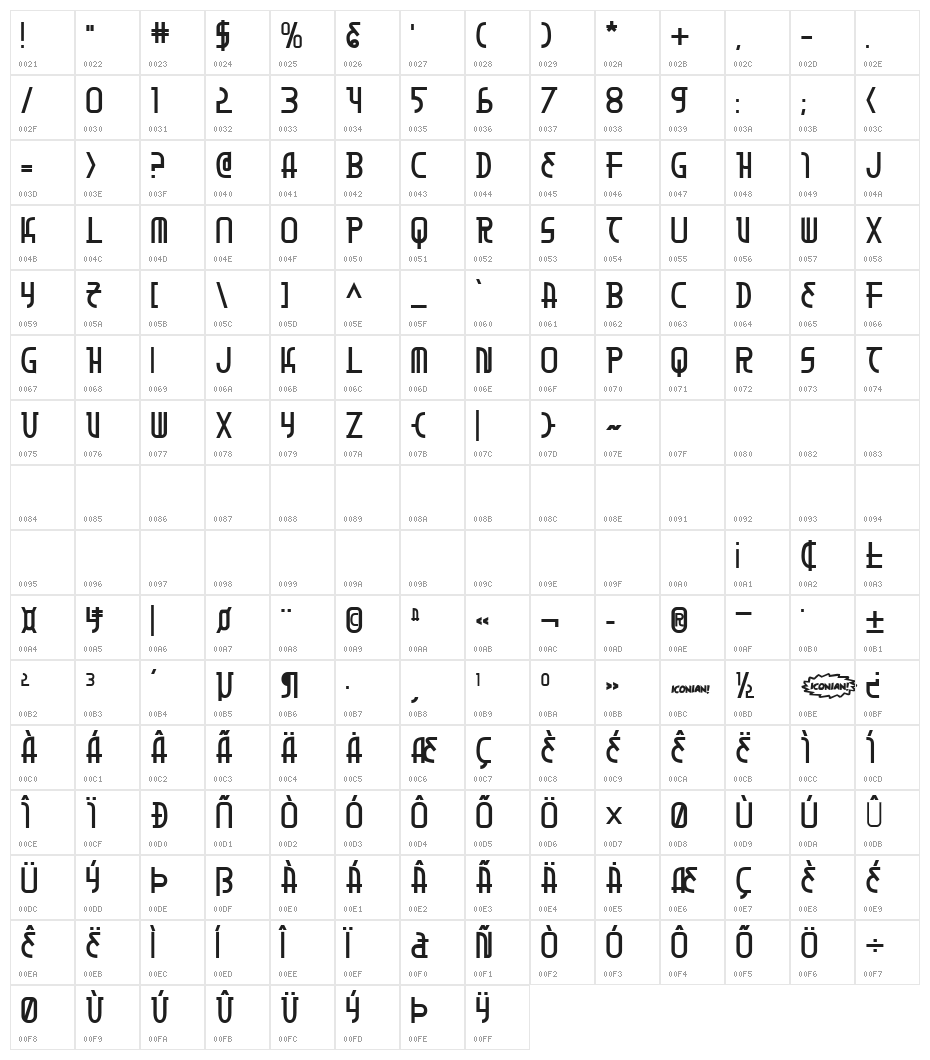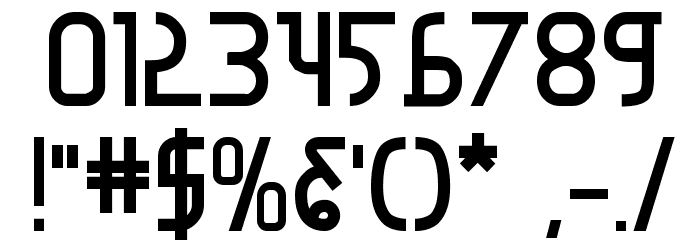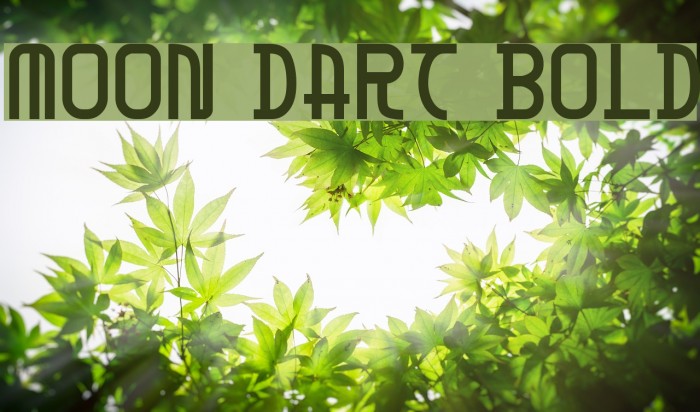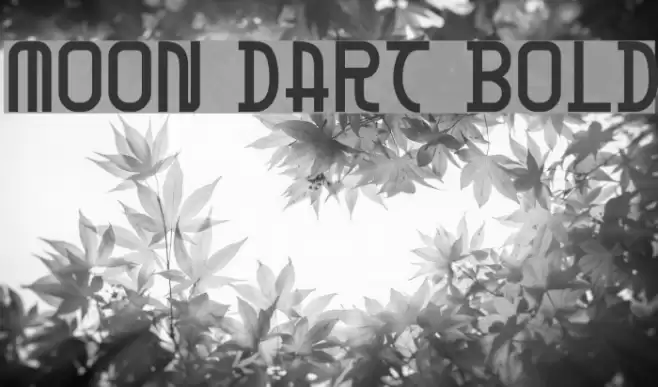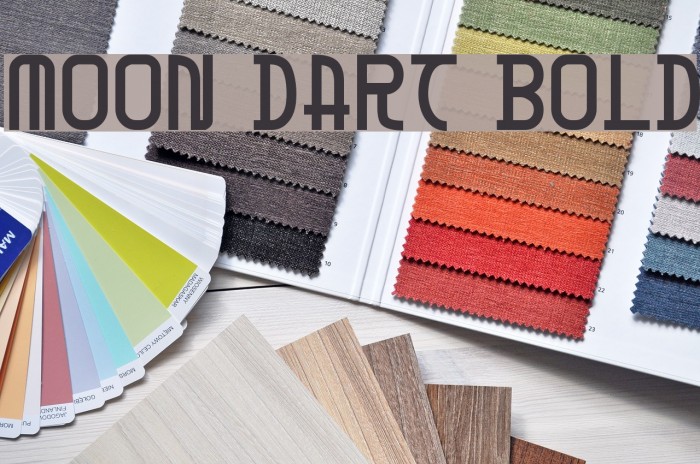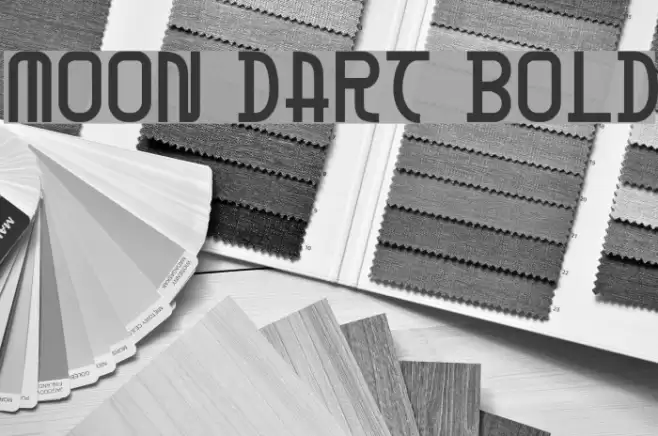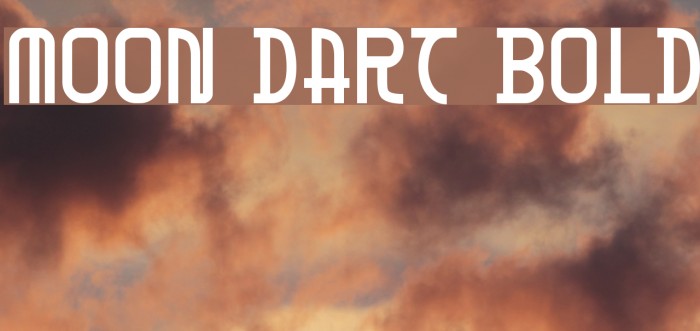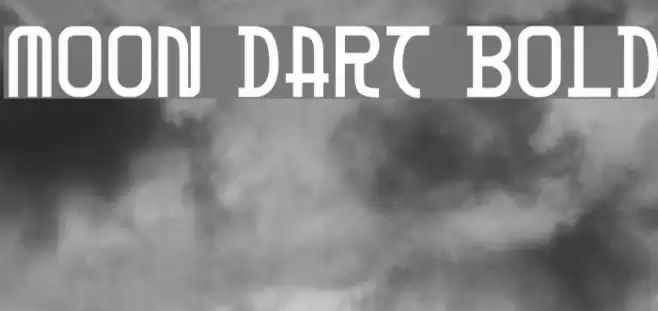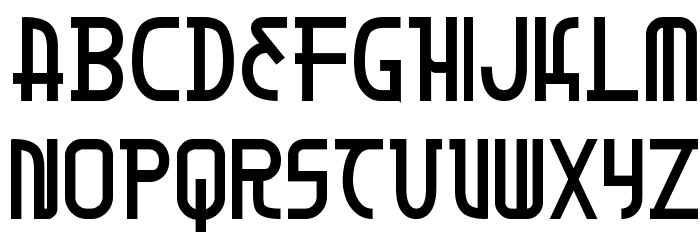
Moon Dart Bold Font
This font features a bold and modern design with a geometric structure. The characters are constructed with clean, straight lines and rounded edges, giving it a futuristic and sleek appearance. The uppercase and lowercase letters maintain a consistent height, contributing to a uniform look. The numerals are distinct and easy to read, while the special characters blend seamlessly with the overall style. The font's design is both functional and aesthetically pleasing, making it suitable for a variety of applications.